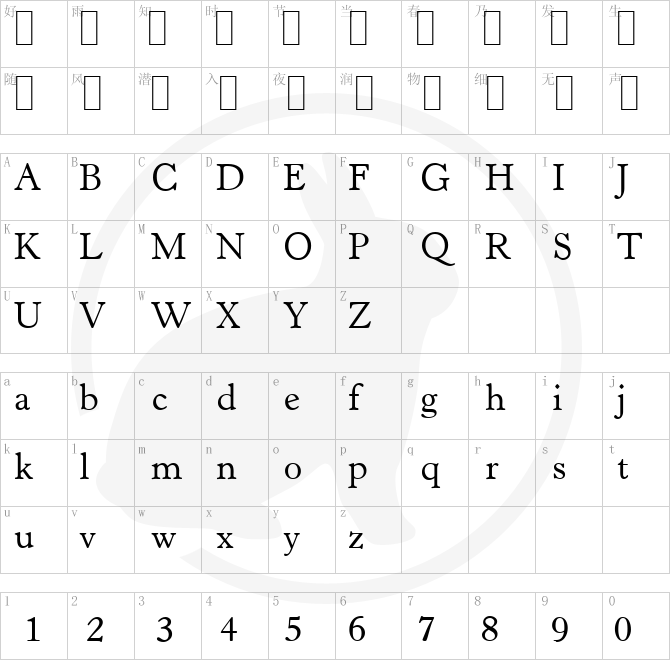
- Font Name:H790-Roman
H790-Roman-Regular.ttf is a very beautiful artistic font, H790-Roman-Regular.ttf is widely used in the design and printing of various books and pictures,H790-Roman-Regular.ttf has a strong visual impact,H790-Roman-Regular.ttf is a commonly used font in newspapers, magazines and books, and is used in posters, e-commerce Poster design, store design, logo design, font design and other fields.H790-Roman-Regular.